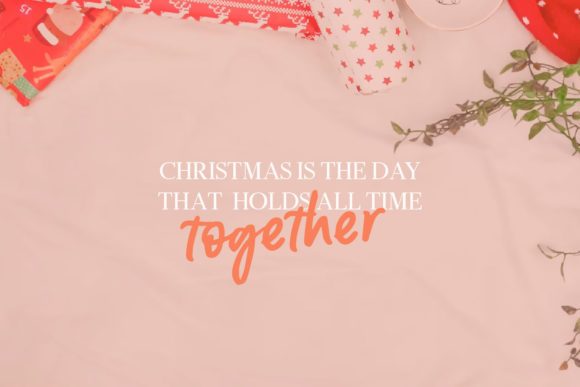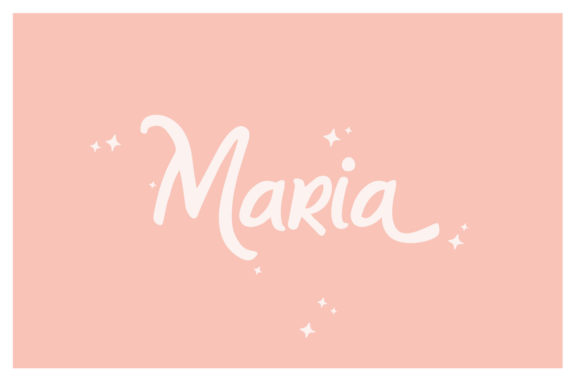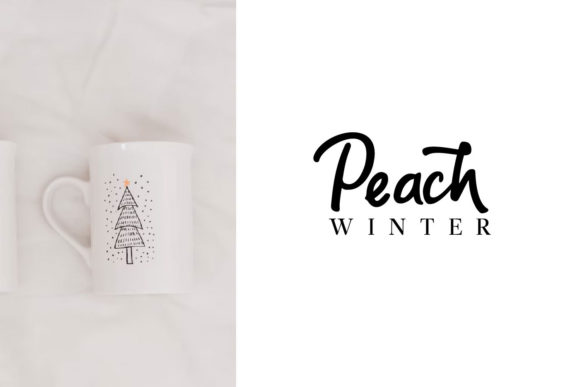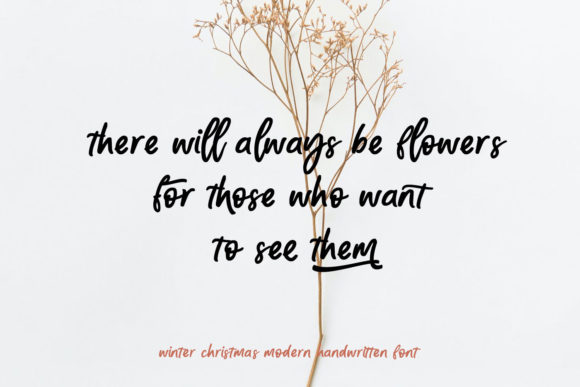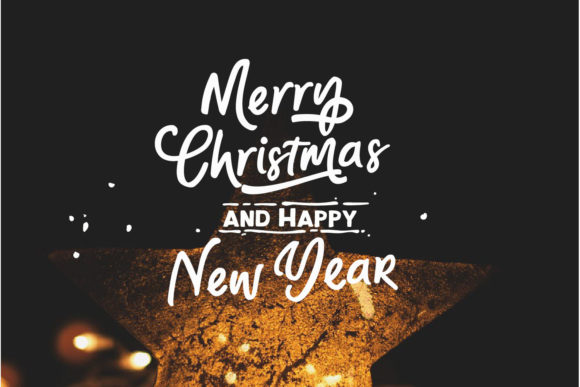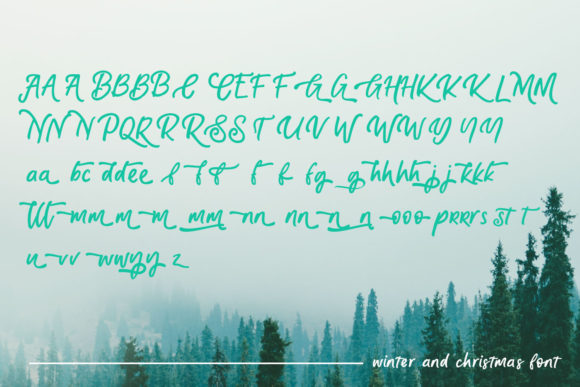
Introduction to Christmas and Winter Font
Christmas and Winter is a magical script font carefully created with a touch of elegance.
Key Features of Christmas and Winter Font
Why Choose Christmas and Winter Font?
Christmas and Winter Font offers exceptional quality and versatility, making it a valuable addition to your design toolkit. Whether you’re creating for personal projects or commercial use, Christmas and Winter Font delivers professional results.